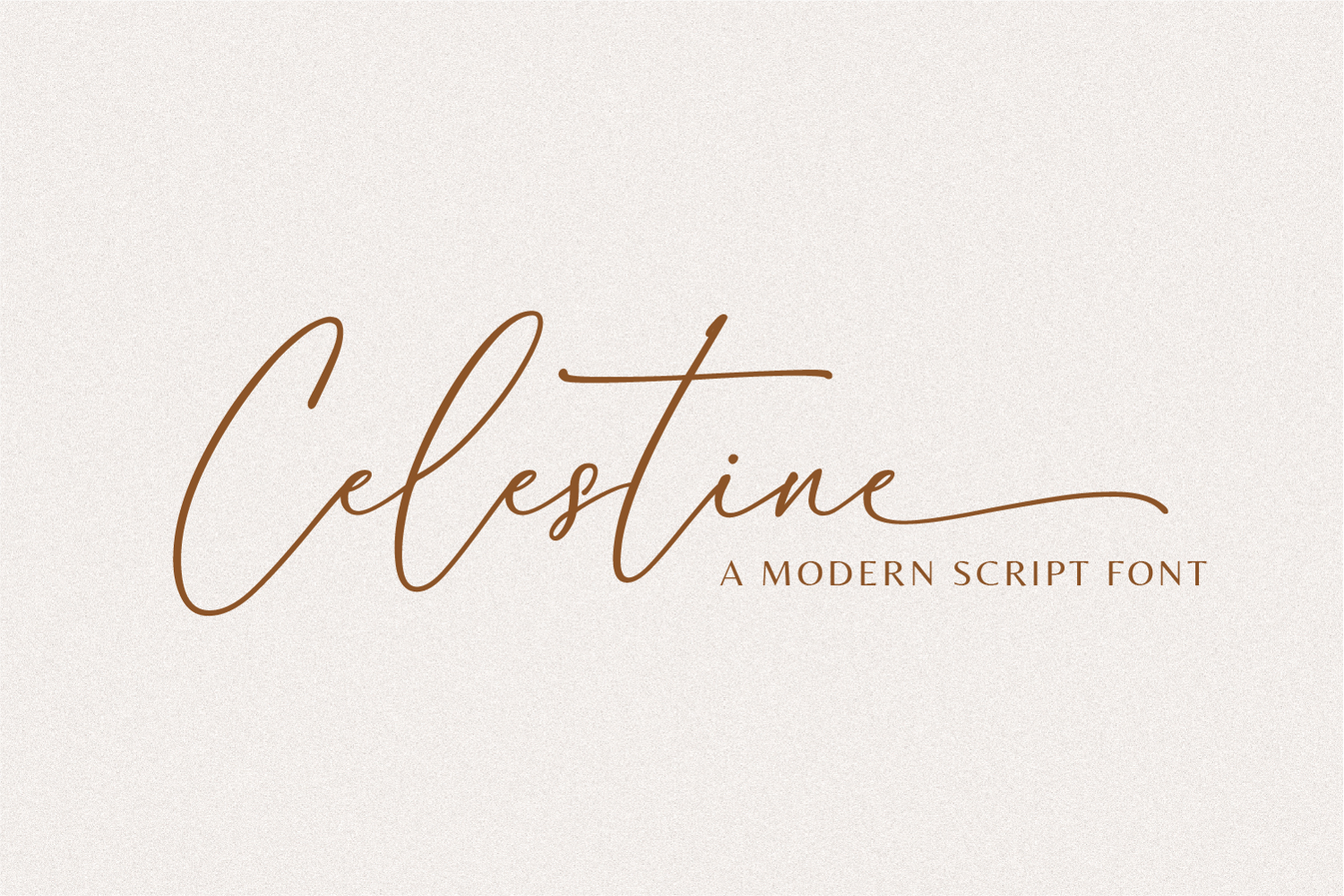
Celestine A Modern Script Font
Celestine is a graceful and elegant script font designed to bring a feminine and timeless touch to your creative projects. Its flowing strokes and romantic curves make it perfect for wedding invitations, branding, packaging, and editorial designs.
• Full A–Z & a–z characters
• Numerals, punctuation, and alternates
• PUA Encoded Swashes (left & right for beautiful openings and endings)
Celestine offers extensive multilingual support covering:
• Basic Latin, Western European, Central European, South Eastern European, South American, and Oceanian languages.**
• Perfect for designers working with diverse global audiences.
Perfect For
• Wedding invitations & stationery
• Logos & branding
• Elegant product packaging
• Social media posts & aesthetic quotes
• Printables, mugs, greeting cards, and more
Highlights
• Feminine, elegant & timeless design
• Left & right swashes (PUA encoded)
• High-quality kerning for smooth connections
Celestine A Modern Script Font example image 1